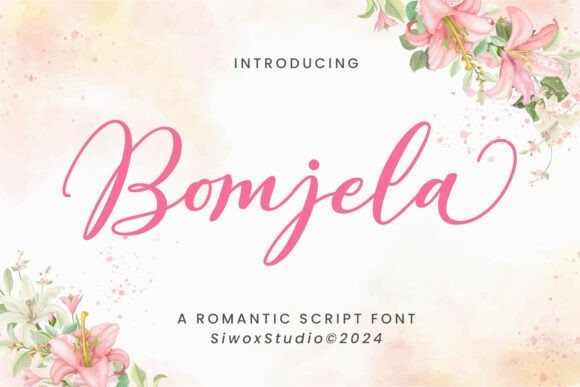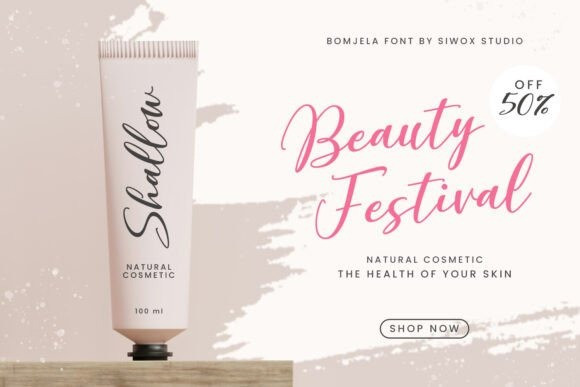
Bomjela Font
Bomjela Font, a captivating handwritten font with an undeniably romantic aura. The light and fresh strokes of Bomjela infuse a touch of pristine sophistication into any design project. Whether it’s for invitations, logos, branding, or advertising campaigns, Bomjela ensures a distinguished visual impact.
Venture into the realm of social media posts, product packaging designs, and labels with Bomjela lending an authentic handwriting taste. Let your wedding design or festive stationery stand out with Bomjela’s gracefully unique touch. Perfect to sprinkle your special events with an extra dash of sparkle – that’s the magic of Bomjela.